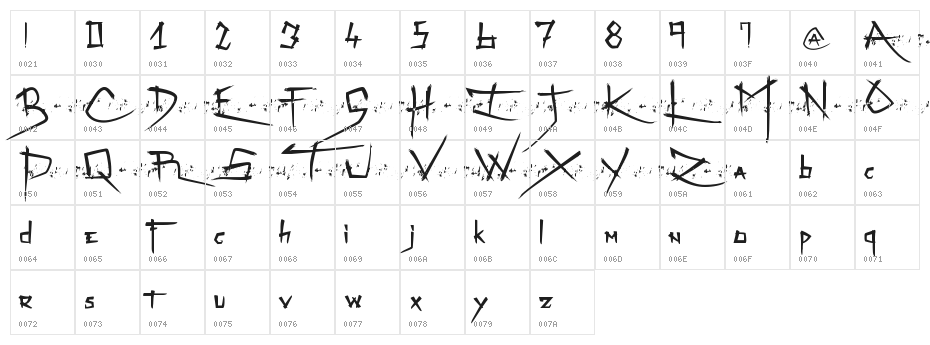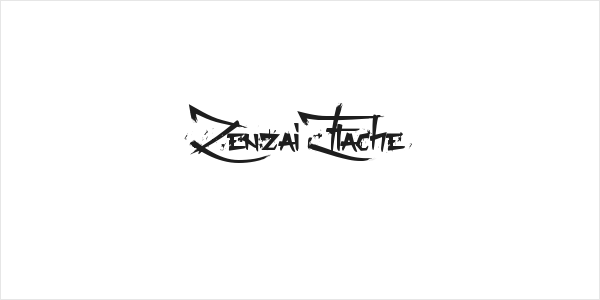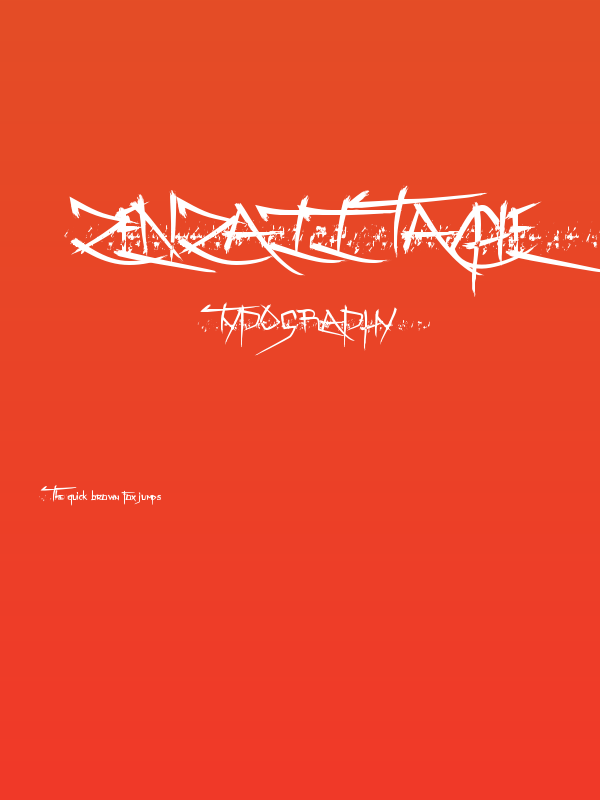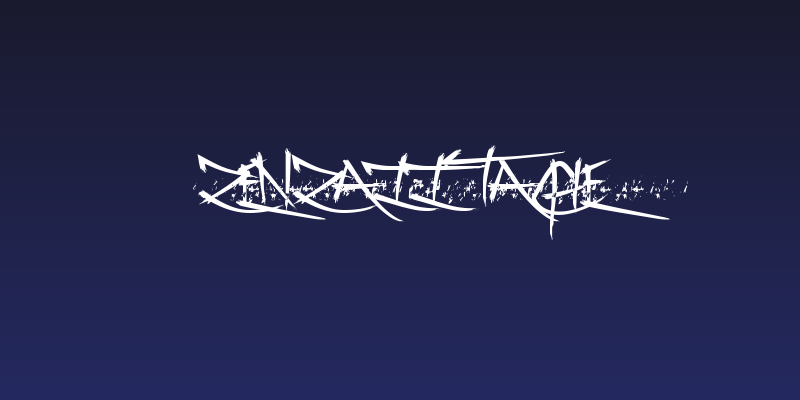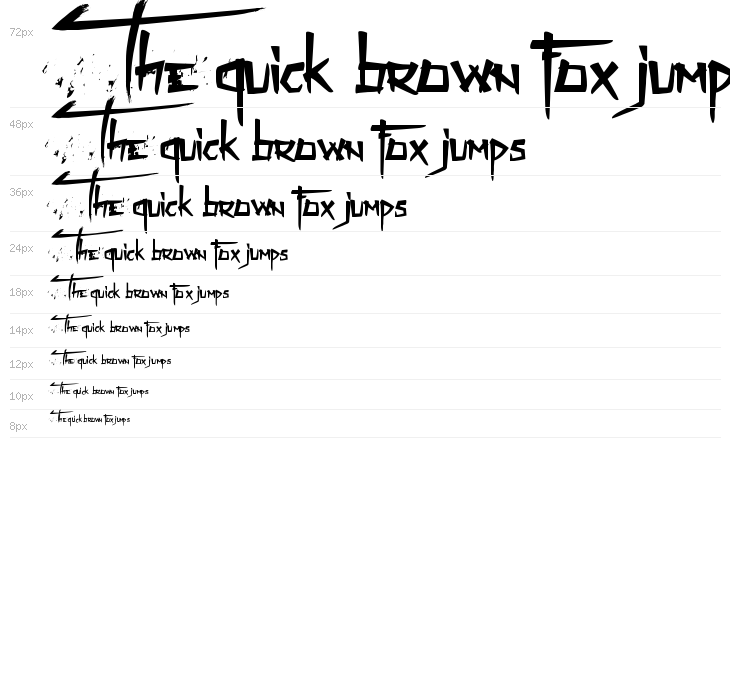
Zenzai Itache Font
Zenzai Itache Description
This font features a bold and edgy design with a graffiti-inspired aesthetic. The letters are angular and sharp, with a distressed texture that adds a rugged, urban feel. The uppercase letters are particularly striking, with exaggerated strokes and a dynamic, energetic style. The lowercase letters maintain the same edgy characteristics but are slightly more restrained. Numbers and special characters follow the same design principles, ensuring consistency throughout. This font is perfect for projects that require a bold statement and a touch of rebellious flair.
Overall StyleModern, Urban, Edgy
Proposed ProjectsIdeal for street art designs, music album covers, urban-themed posters, and edgy branding projects.